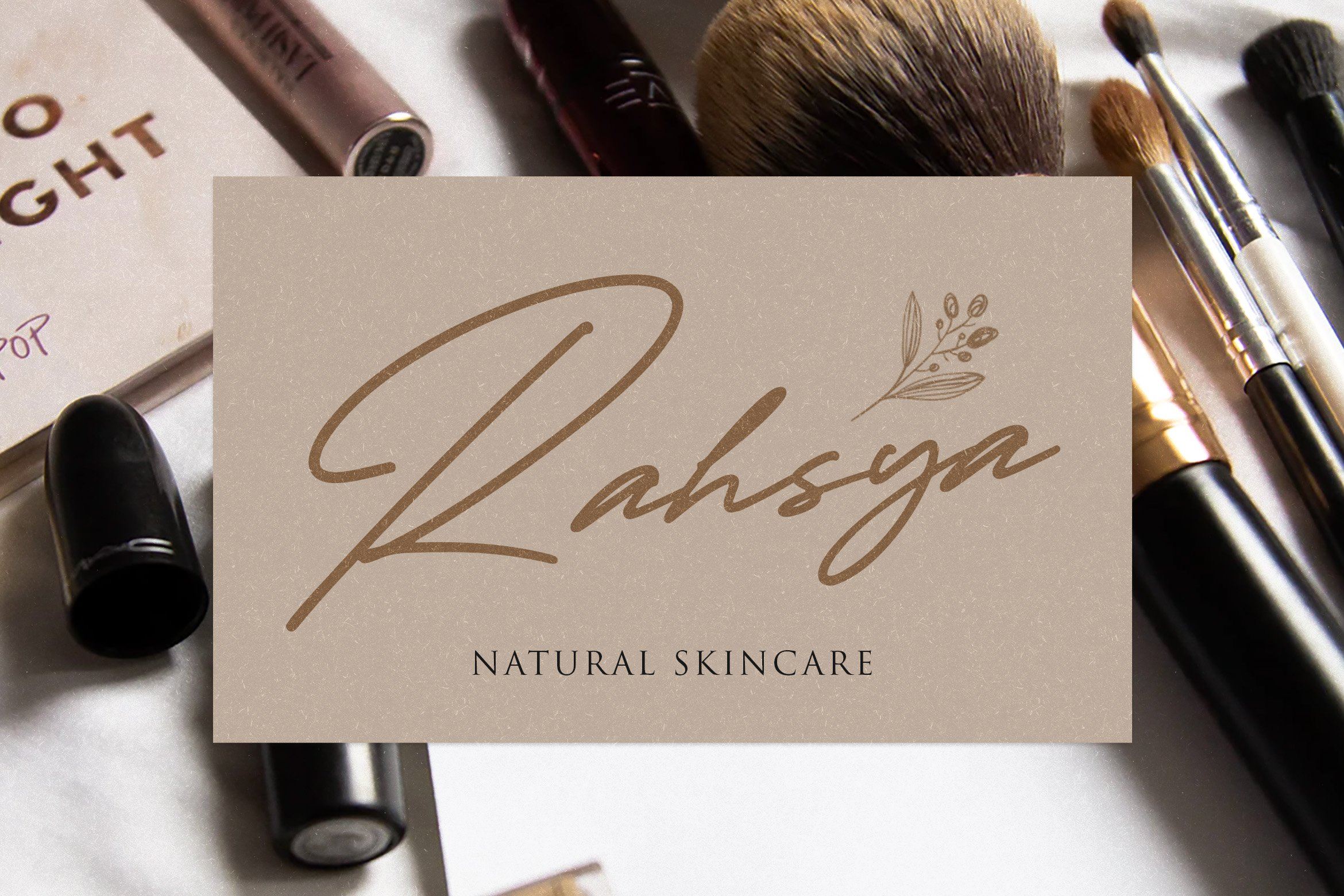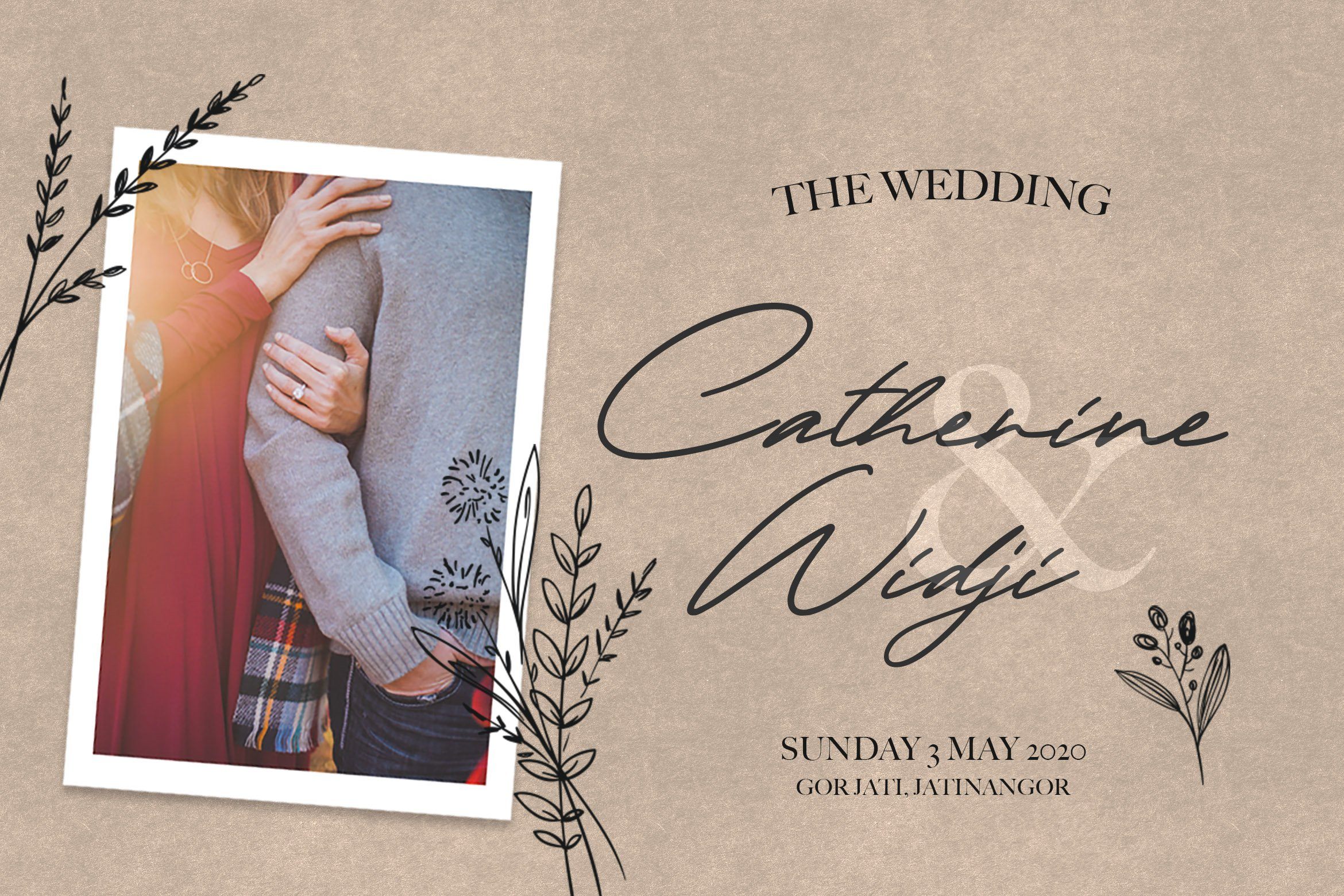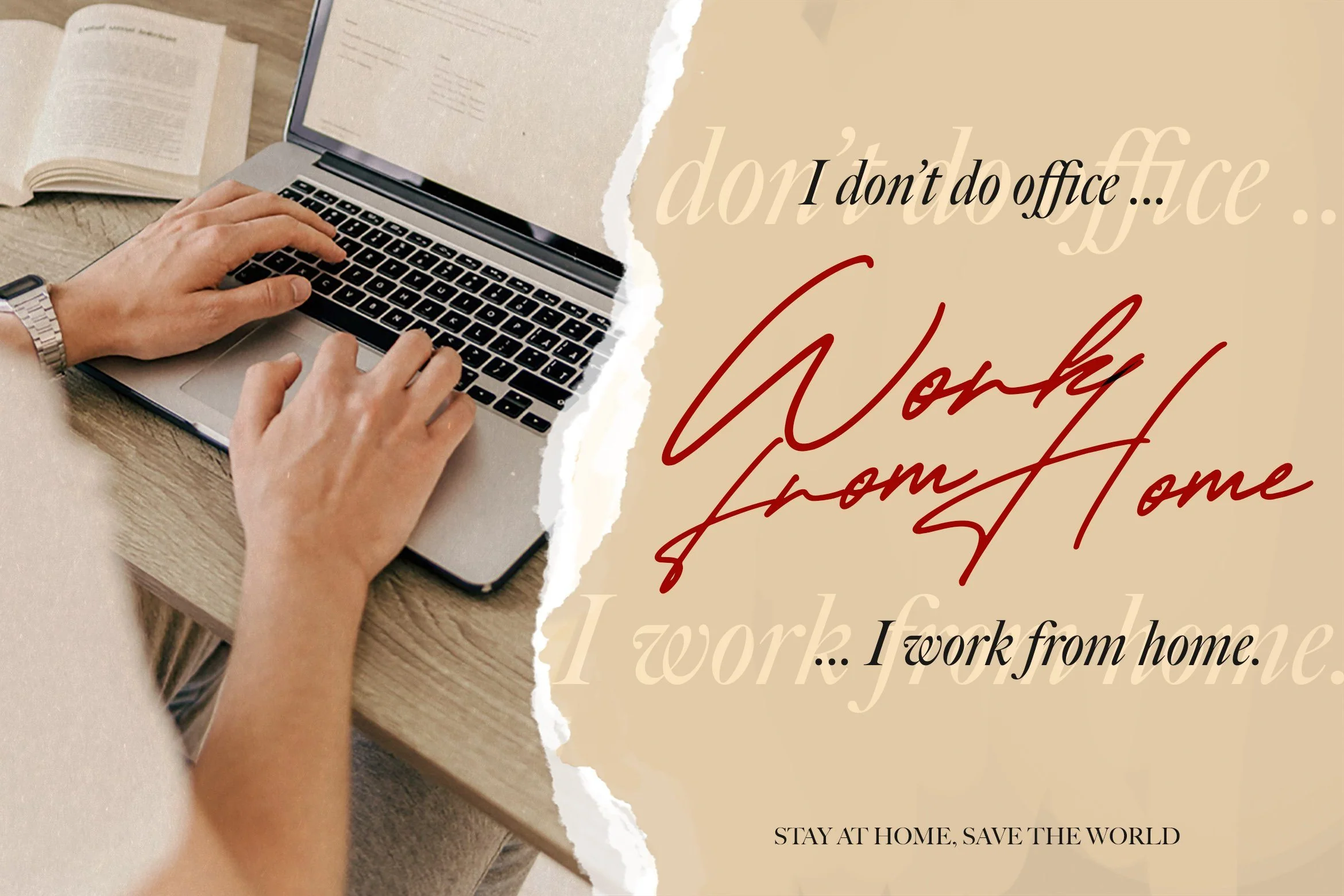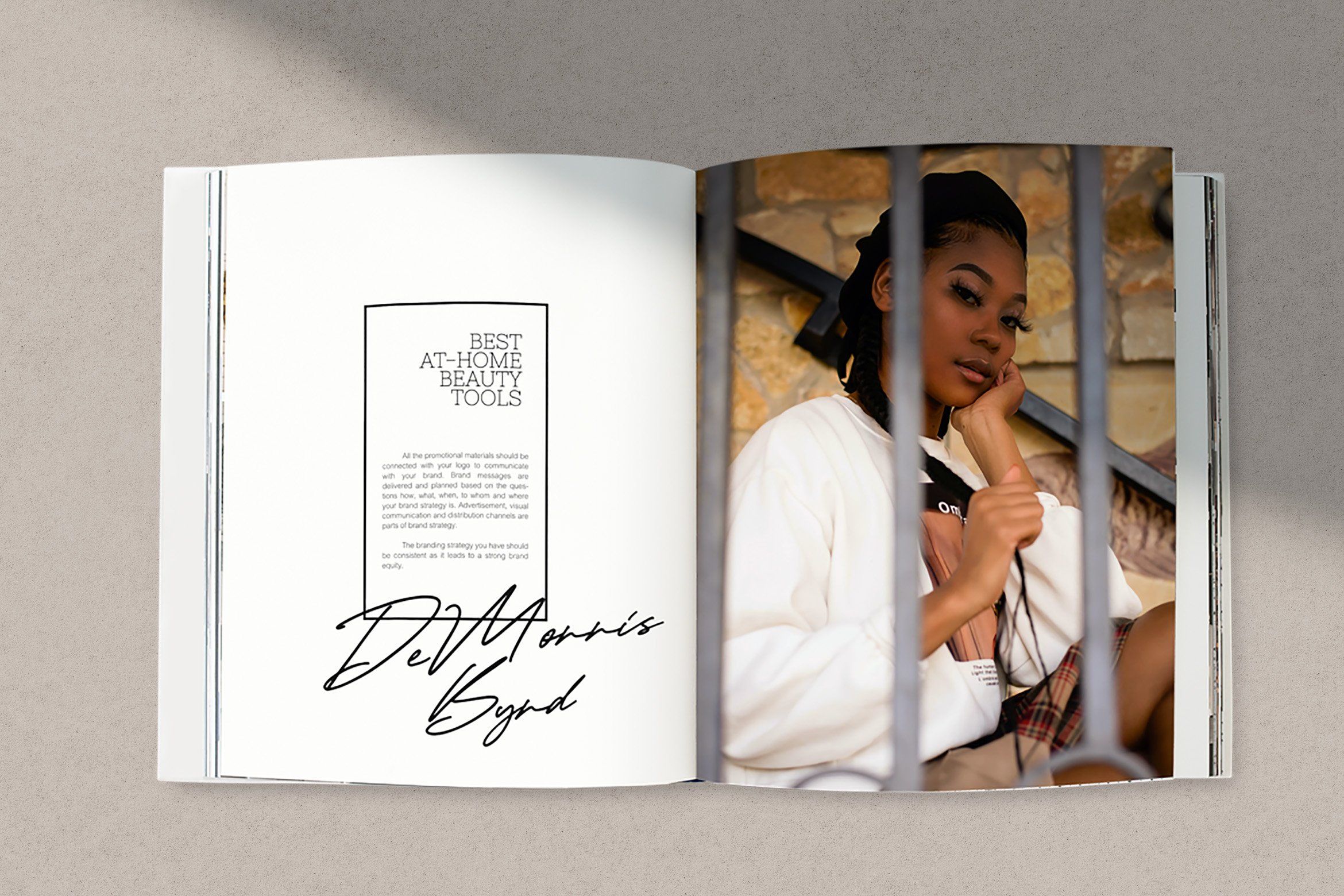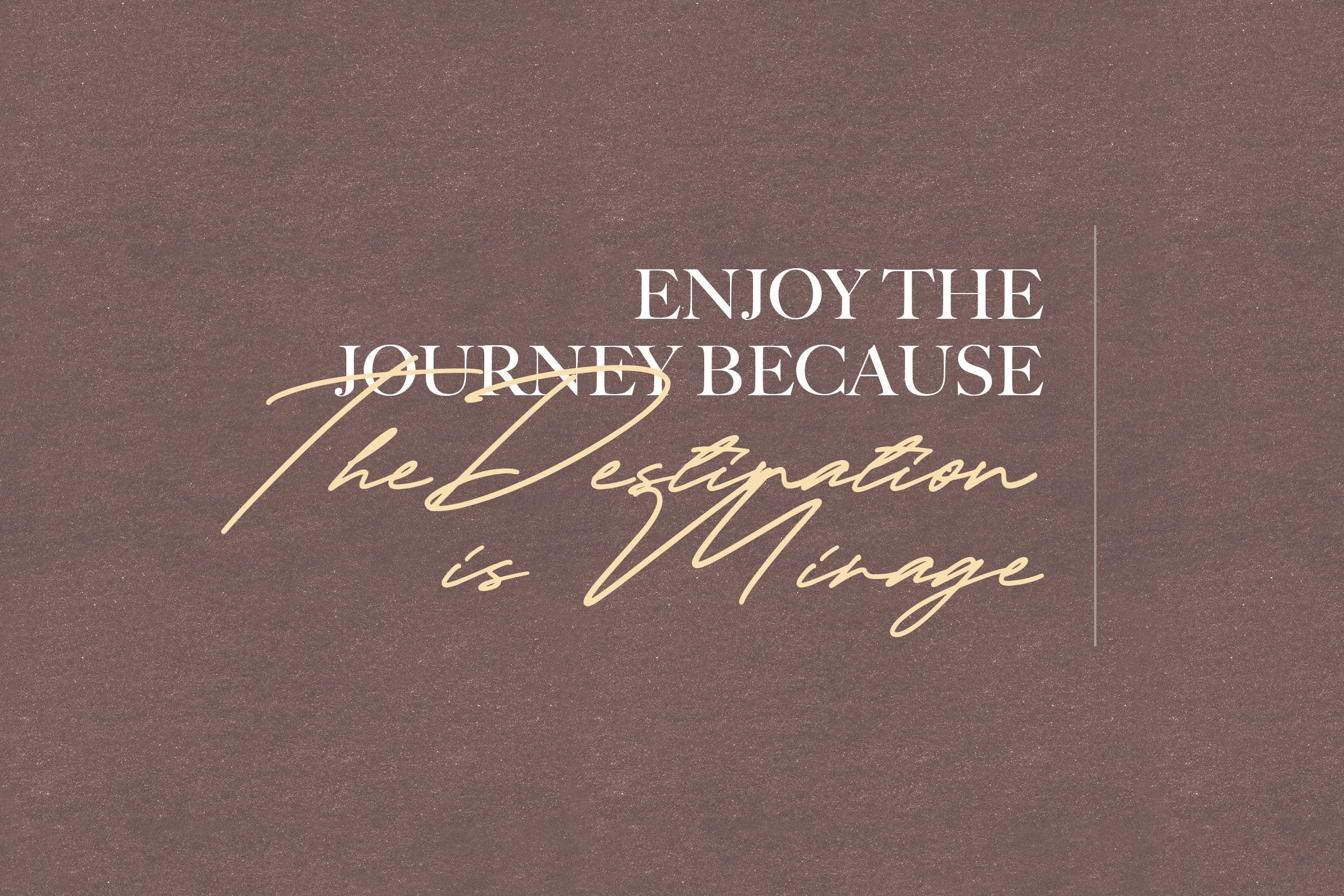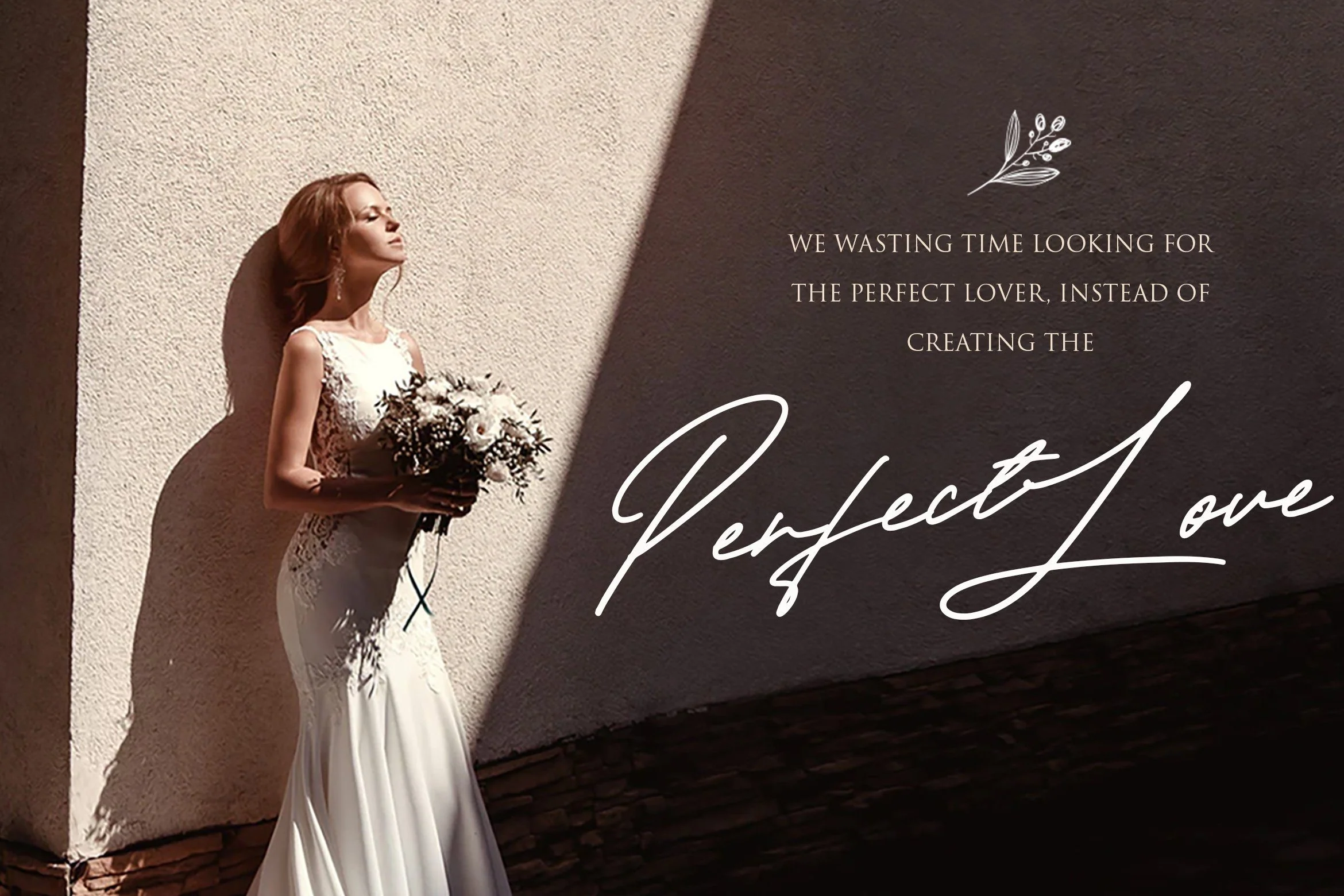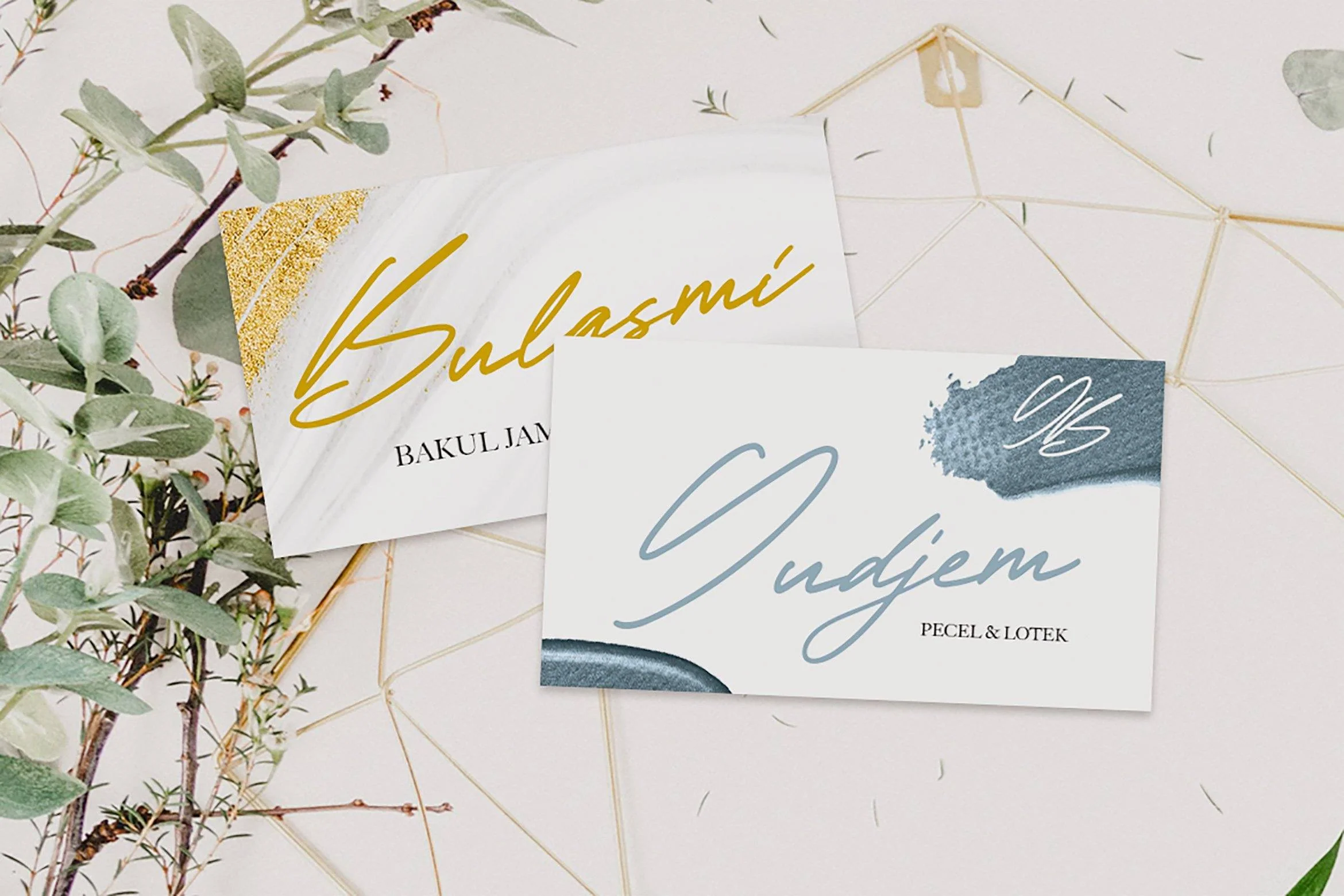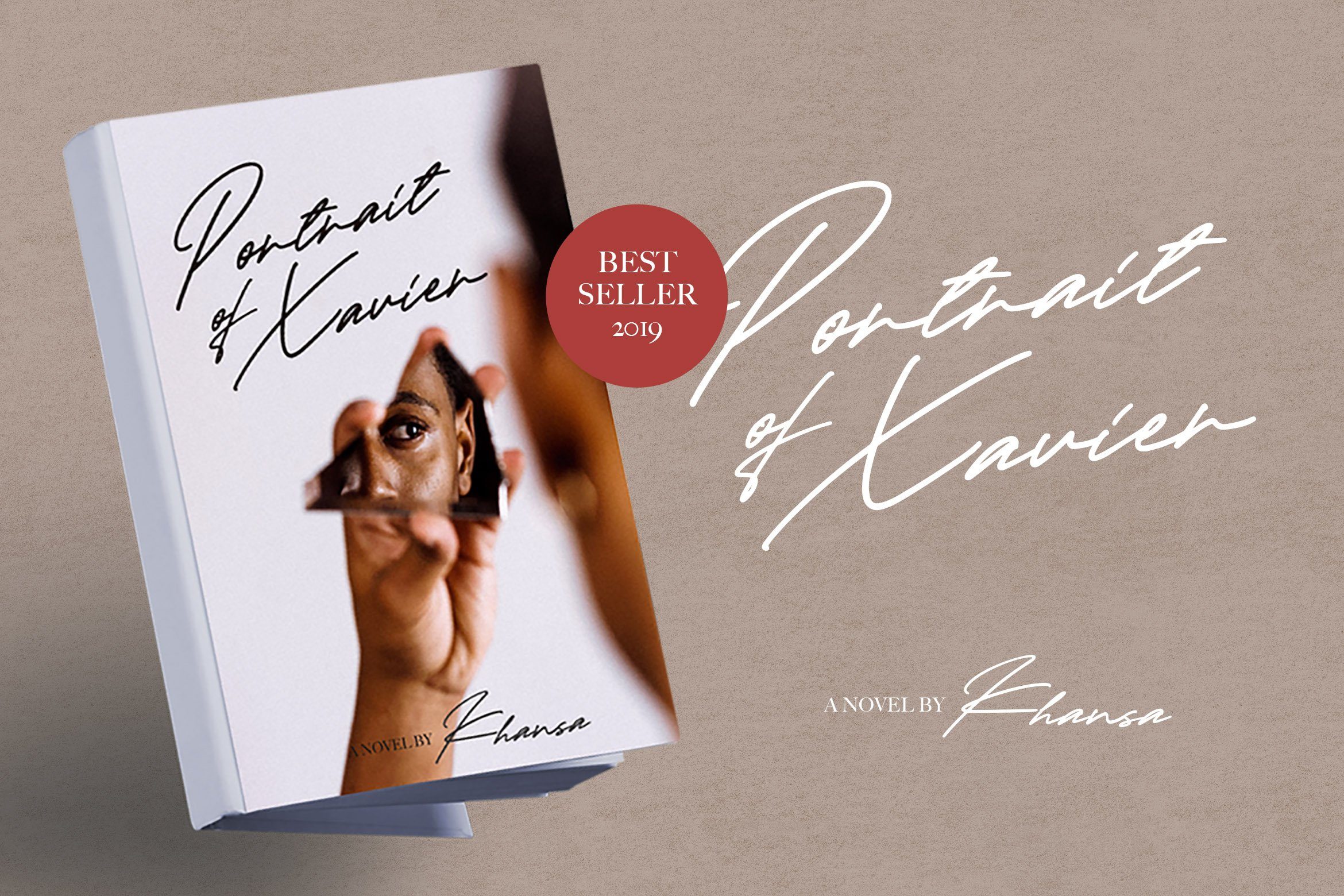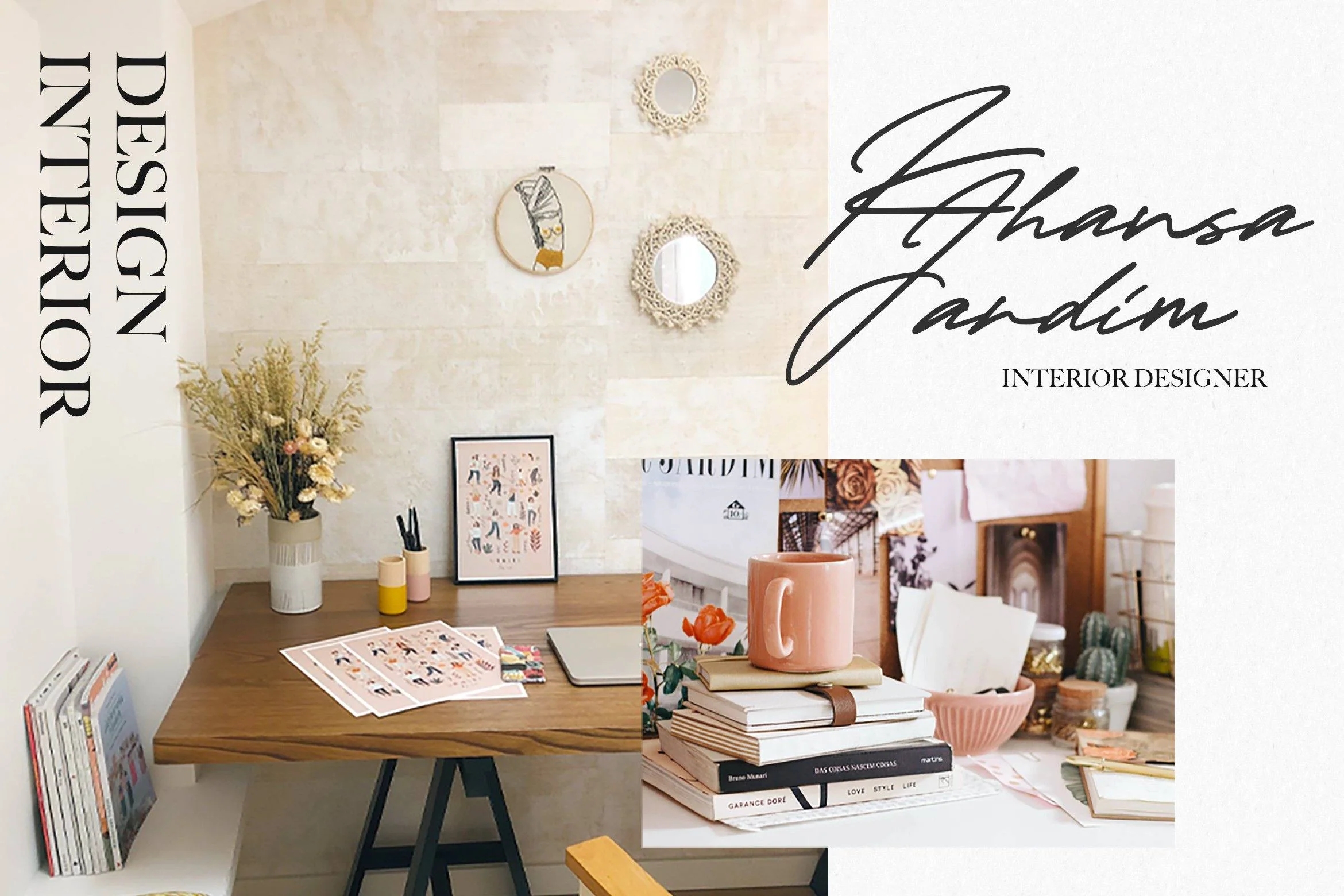
Taniya Relly - Luxury Signature Font
Introducing Taniya Relly - Luxury Signature Font
Taniya Relly is a Script Font with Handwritten Signature Style. The Taniya Relly font was created with authentic handwritting brush pen. This font is perfect for fashion brand, wedding invitation, business card, logo brand, signature, and then calligraphy.
This Font contains Classy, Elegant, Creative, Cool and has a Unique Concept.